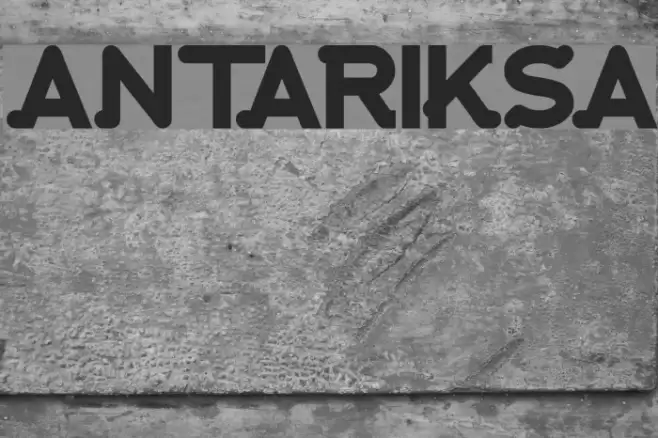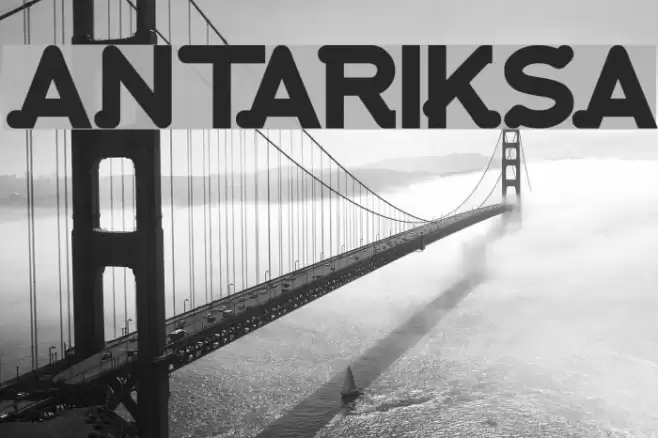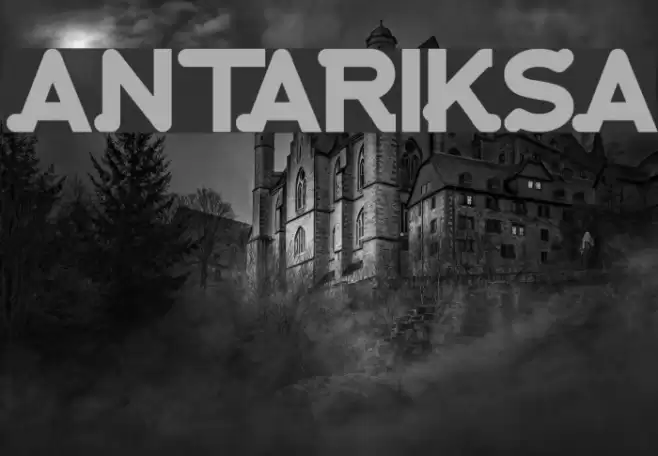
antariksa Font
antariksa Description
This font features bold, rounded characters with a distinct, playful style. The letters are uniformly thick, giving a strong and impactful appearance. The rounded edges and consistent stroke width contribute to a friendly and approachable aesthetic. The uppercase letters are prominent and well-defined, making them suitable for attention-grabbing headlines. The overall design is modern and slightly whimsical, with a touch of retro charm. The font's boldness ensures high visibility, making it ideal for various design projects that require a standout typeface.
A bold, rounded font with a playful and modern style from Uncategorized fonts.
- Proposed Projects: Ideal for branding, posters, headlines, and any design project that requires a bold and friendly typeface.
- Overall Style: Modern, Playful